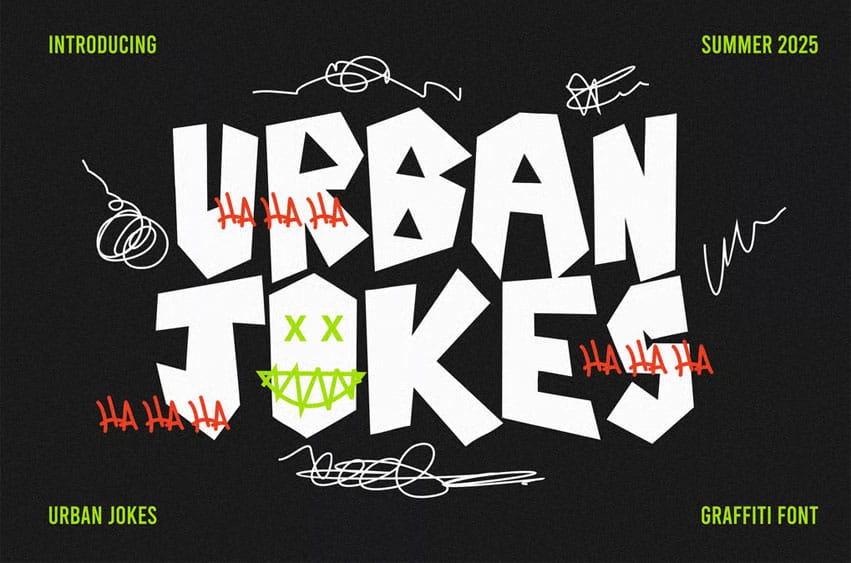
Urban Jokes Font is a bold, expressive graffiti font that delivers maximum energy and attitude to every design. With its raw brush style and all-caps characters, this font is built for designers who want to create loud, rebellious, and unforgettable visuals. Whether you’re designing posters, album covers, murals, or digital art, Urban Jokes brings that untamed urban personality straight into your layout.
As a true bold graffiti display font, Urban Jokes fuses the spontaneity of street tagging with digital precision. Its thick strokes, organic texture, and street-born flair make it an ideal choice for high-impact headings, short quotes, and modern branding with an urban edge.
- All-Caps Character Set
- Handcrafted Bold Brush Style
- Organic Street Texture
- Multilingual Support (Latin-based)
- Perfect for Posters, Murals, Album Covers, Digital Art, Headlines
Why Designers Love It: Designers are drawn to Urban Jokes because they add instant personality and impact. The graffiti font style gives their work an authentic, hand-painted look that feels real, energetic, and expressive. Whether used in street art designs, youth-focused campaigns, or modern digital layouts, Urban Jokes makes any message impossible to ignore.
Its bold, all-caps structure ensures maximum readability while maintaining a loud and gritty aesthetic. With multilingual support and simple installation, this graffiti font becomes a fast favorite in every designer’s toolkit, especially when working on visuals that need to stand out in a scroll-heavy world.
If you’re looking for a bold graffiti font that combines attitude, clarity, and style, Urban Jokes is it. Its handcrafted look and aggressive brush strokes make it the go-to all-caps graffiti display font for posters, zines, digital covers, and creative branding.
Perfect for use in print and on the web, Urban Jokes provides designers with a reliable and energetic tool to bring street art style into professional-quality projects. It’s not just a font—it’s a design voice.
Urban Jokes is more than a font—it’s an explosion of urban energy on your canvas. From wild compositions to structured layouts that need a rebellious twist, this bold all-caps graffiti typeface gives your work edge, power, and personality. Add it to your design arsenal today and let your words shout with style.